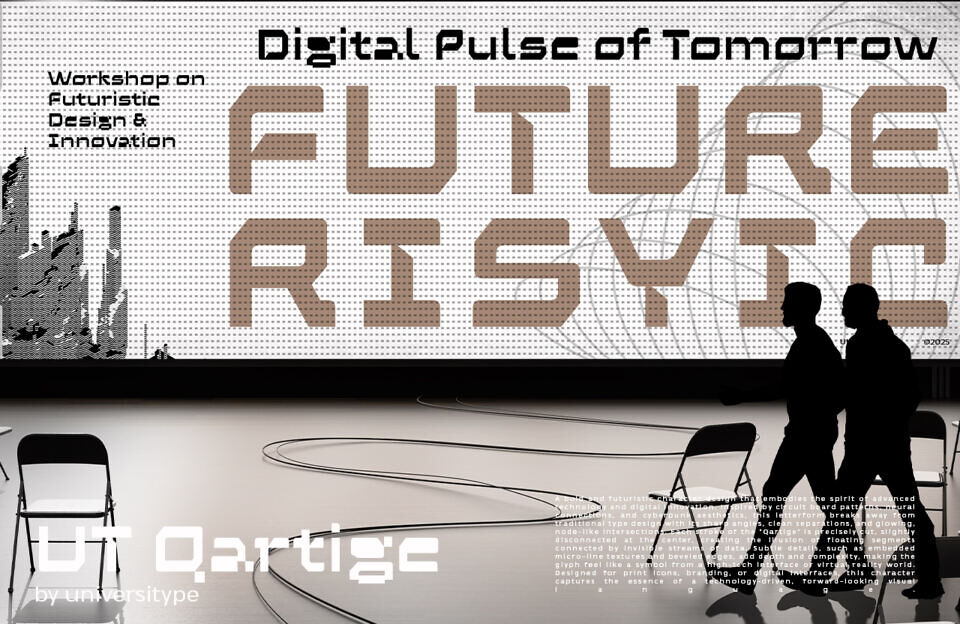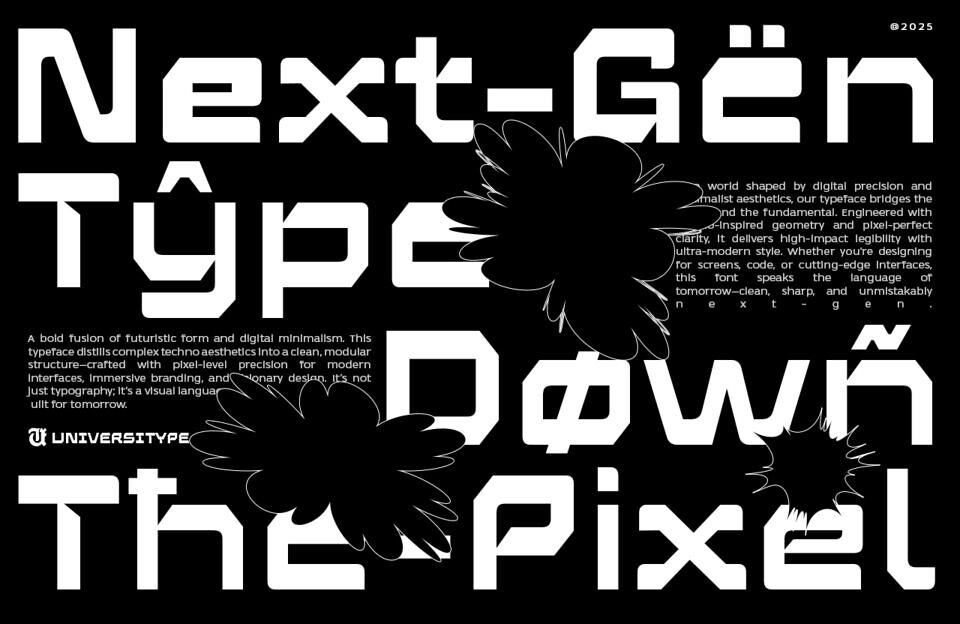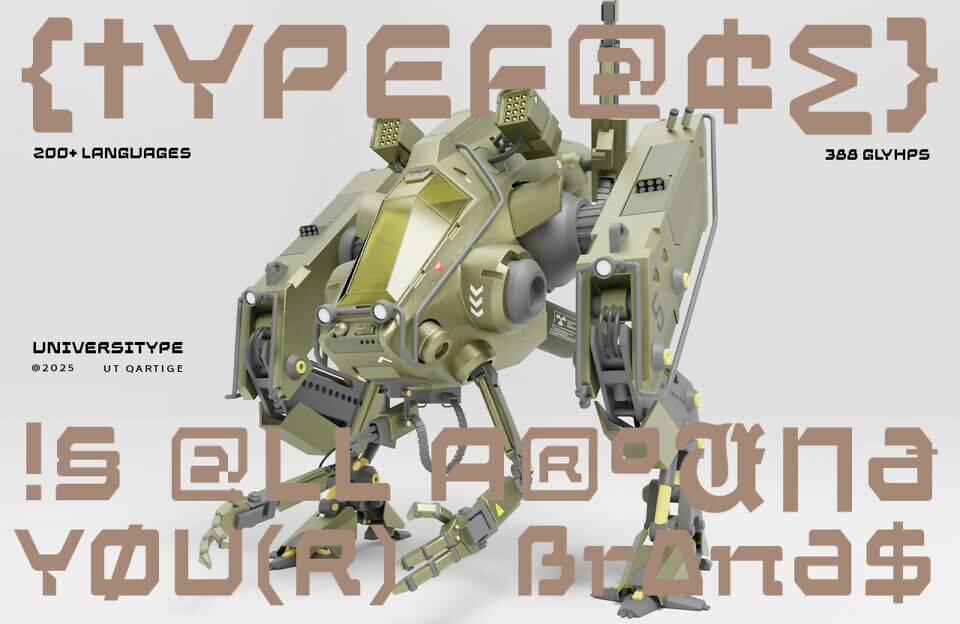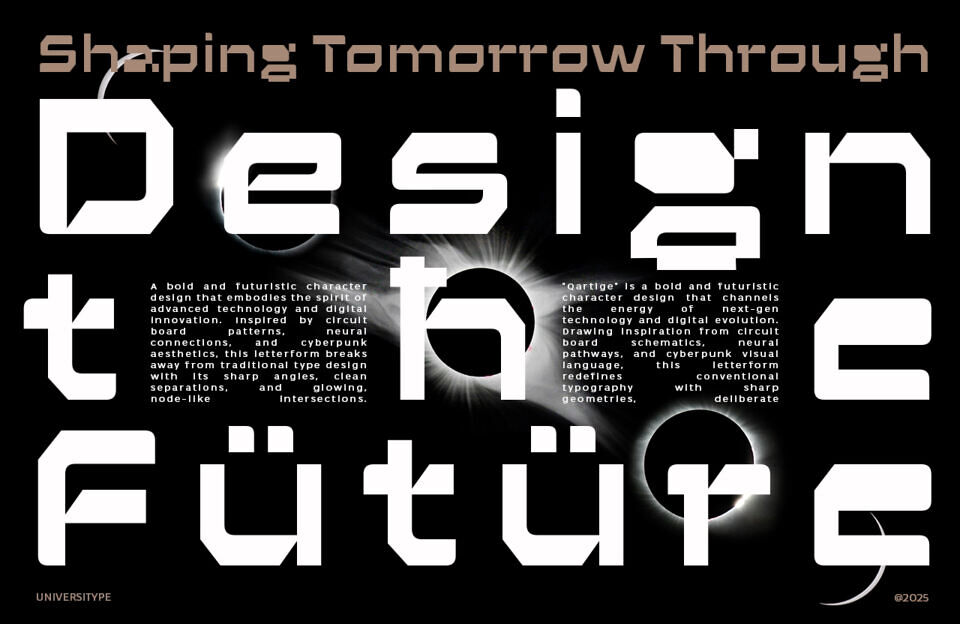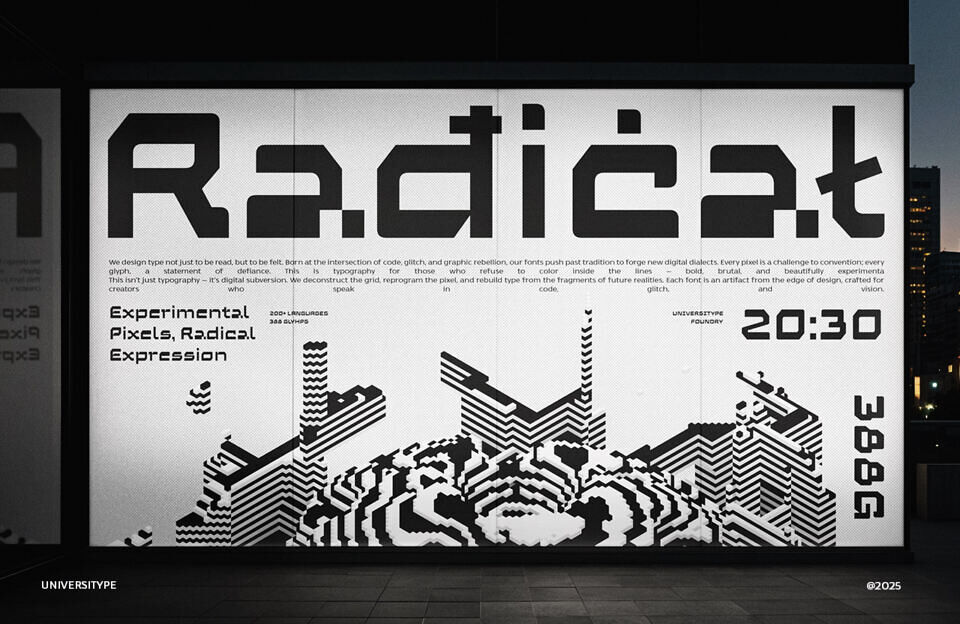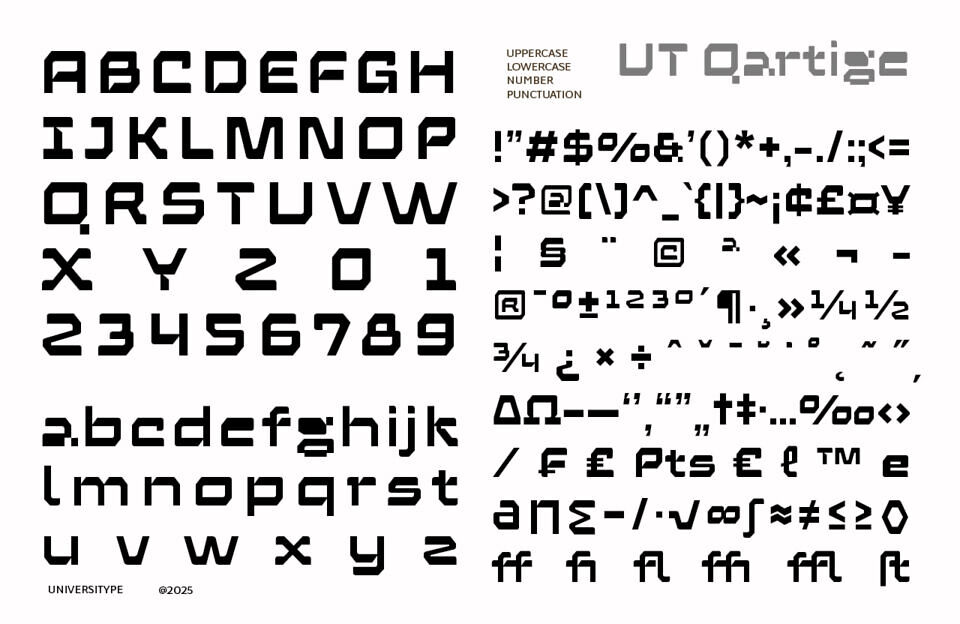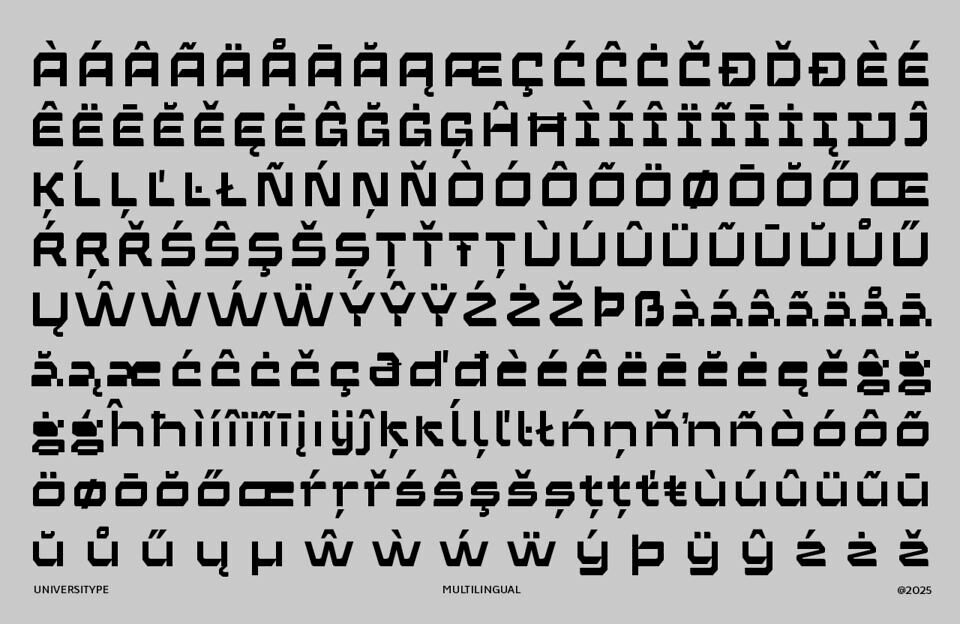
UT Qartige is a techno-futuristic typeface born from the fusion of machine precision and digital rebellion. With its angular cuts, micro-line illusions, and bold, cyberpunk edge, this font feels like it just stepped out of a high-tech lab or a VR command center.
Every letterform is designed to look like a data stream in motion—clean, coded, and full of character.